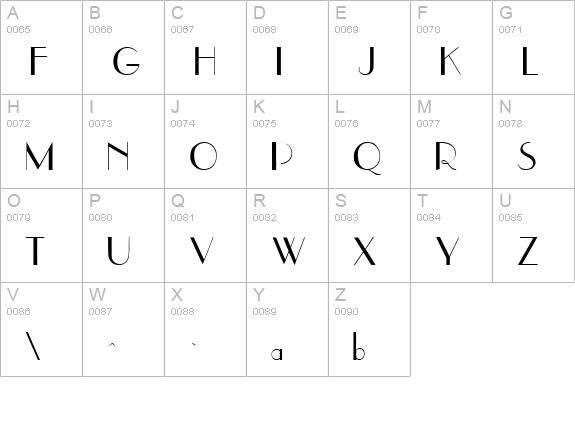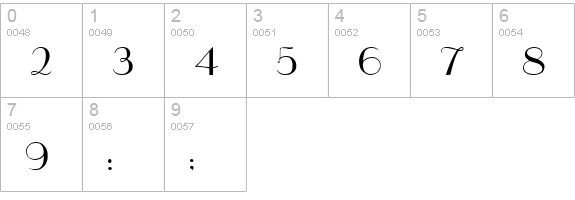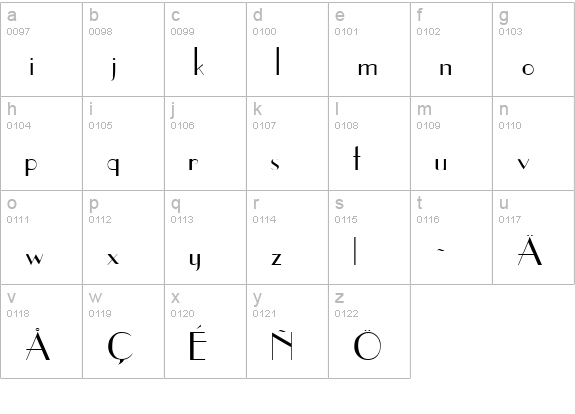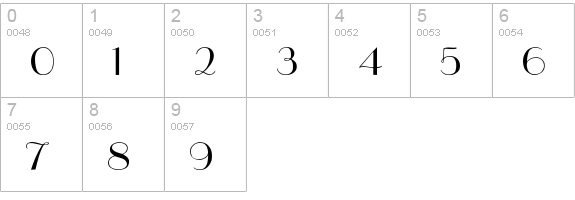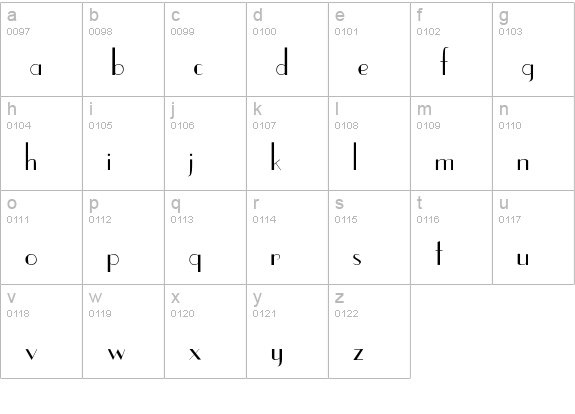
UpperEasSid Font Details
UpperEasSid is a strikingly elegant and effortlessly sophisticated font that exudes the essence of the Upper East Side lifestyle. With its sleek lines, graceful curves, and refined letterforms, this font captures the essence of luxury and exclusivity. Designed with meticulous attention to detail, UpperEasSid is perfect for any project that requires a touch of refinement and class. Whether you're designing a high-end fashion magazine, a luxury brand logo, or an upscale invitation, this font will elevate your design to new heights. But what truly sets UpperEasSid apart is its accessibility. Unlike many other premium fonts, UpperEasSid is free to download at FontsMarket.com. We believe that exceptional quality should be available to everyone, and that's why we've made UpperEasSid freely available for both personal and commercial use. With its timeless beauty and accessibility, UpperEasSid is a font that embodies the spirit of luxury and is sure to leave a lasting impression. So why wait? Download UpperEasSid today from FontsMarket.com and experience the elegance and sophistication it brings to your design projects.